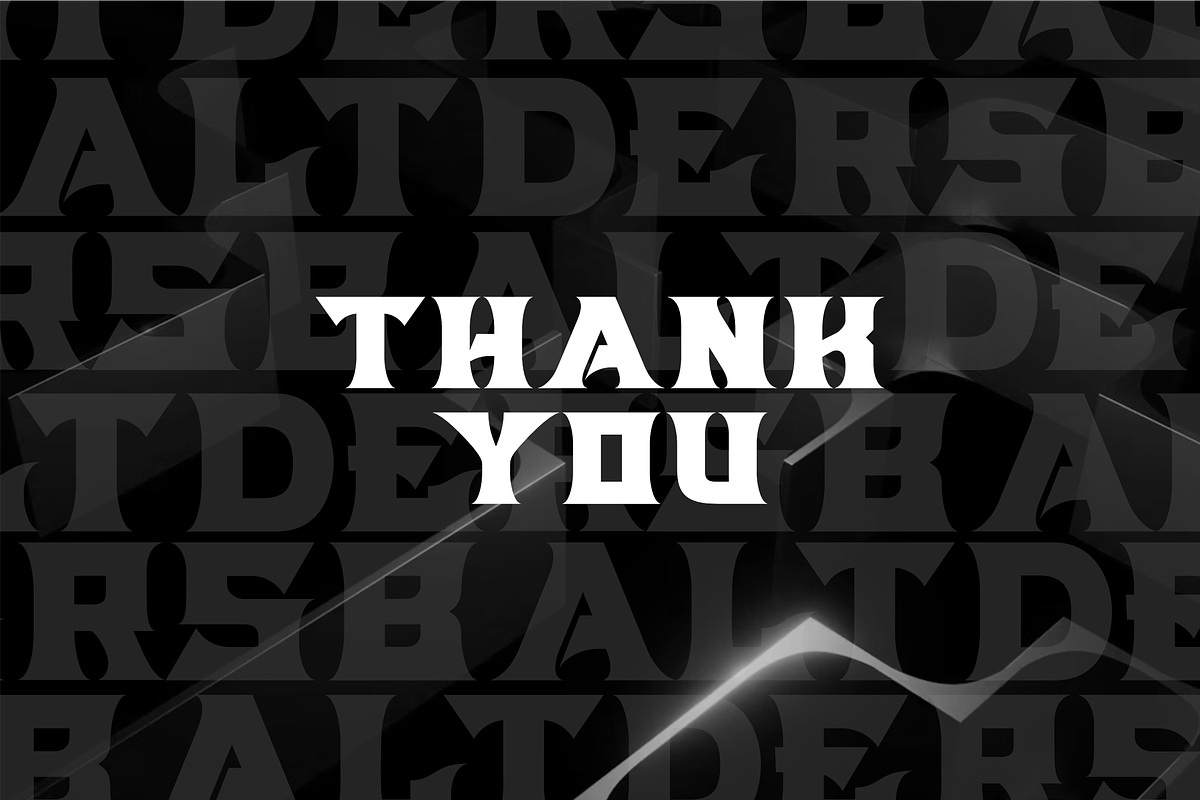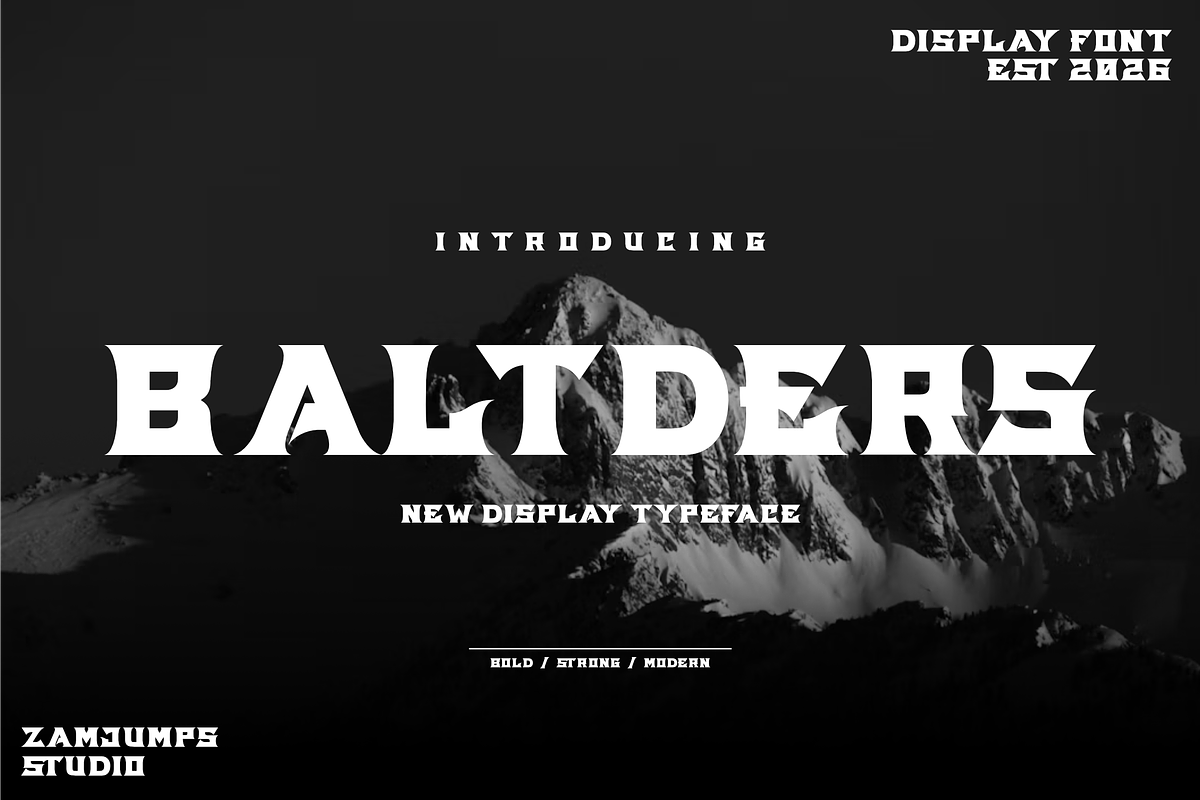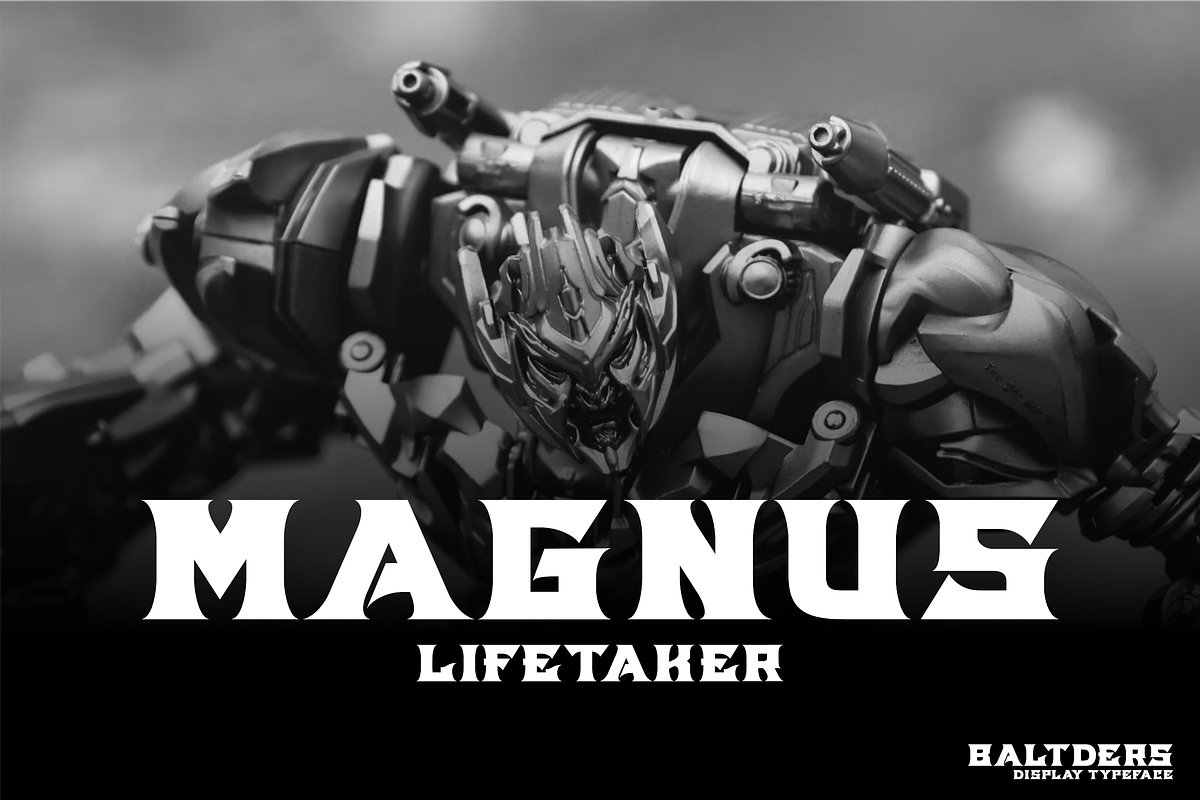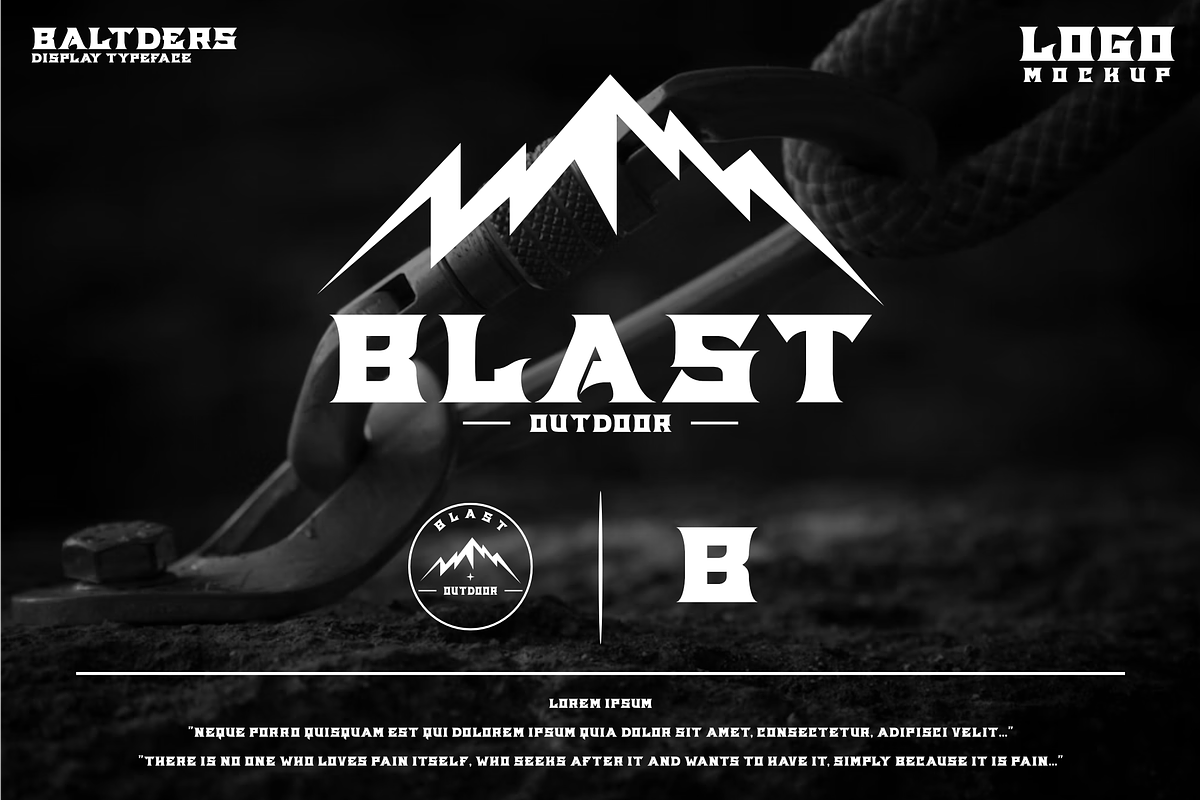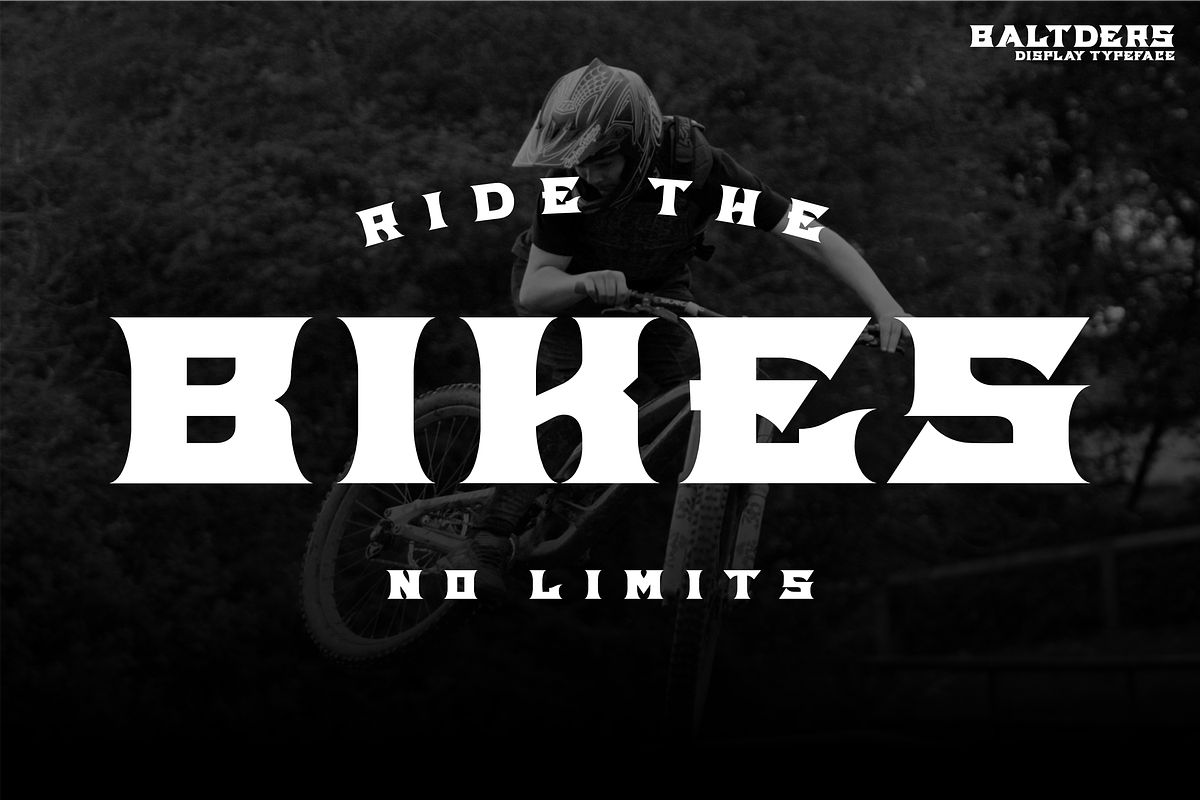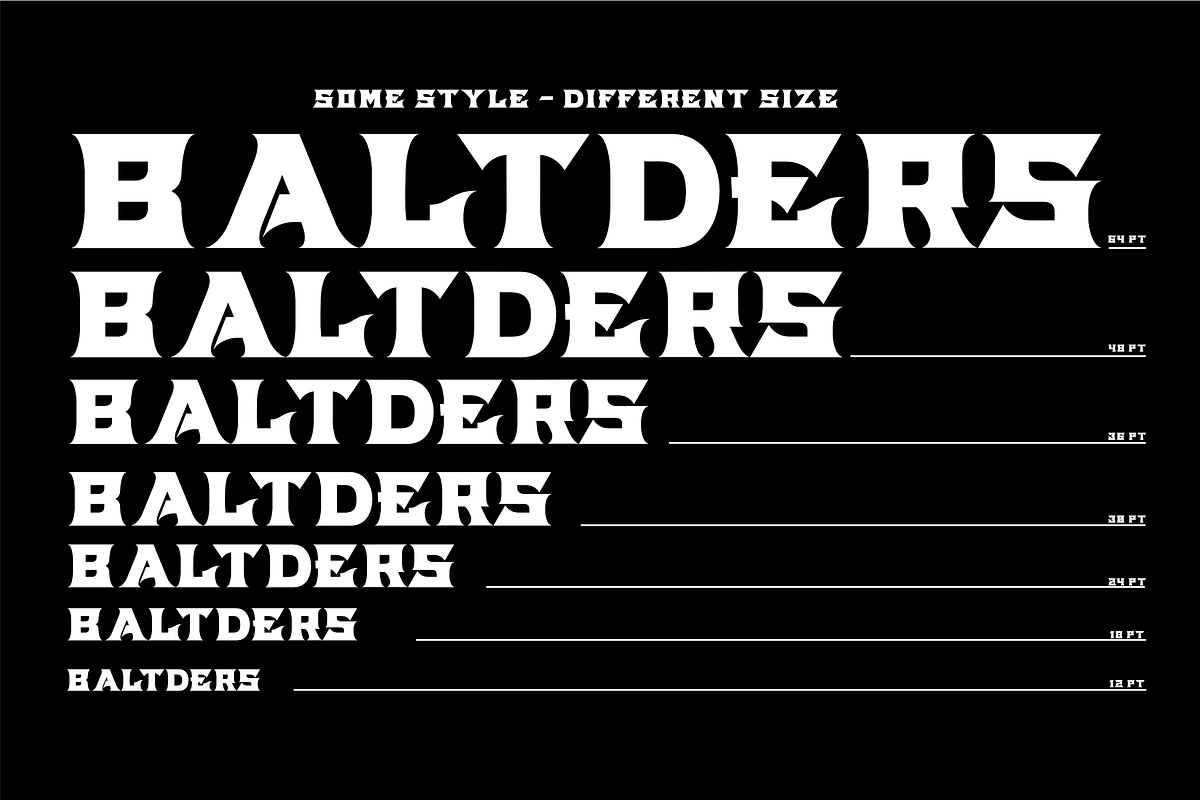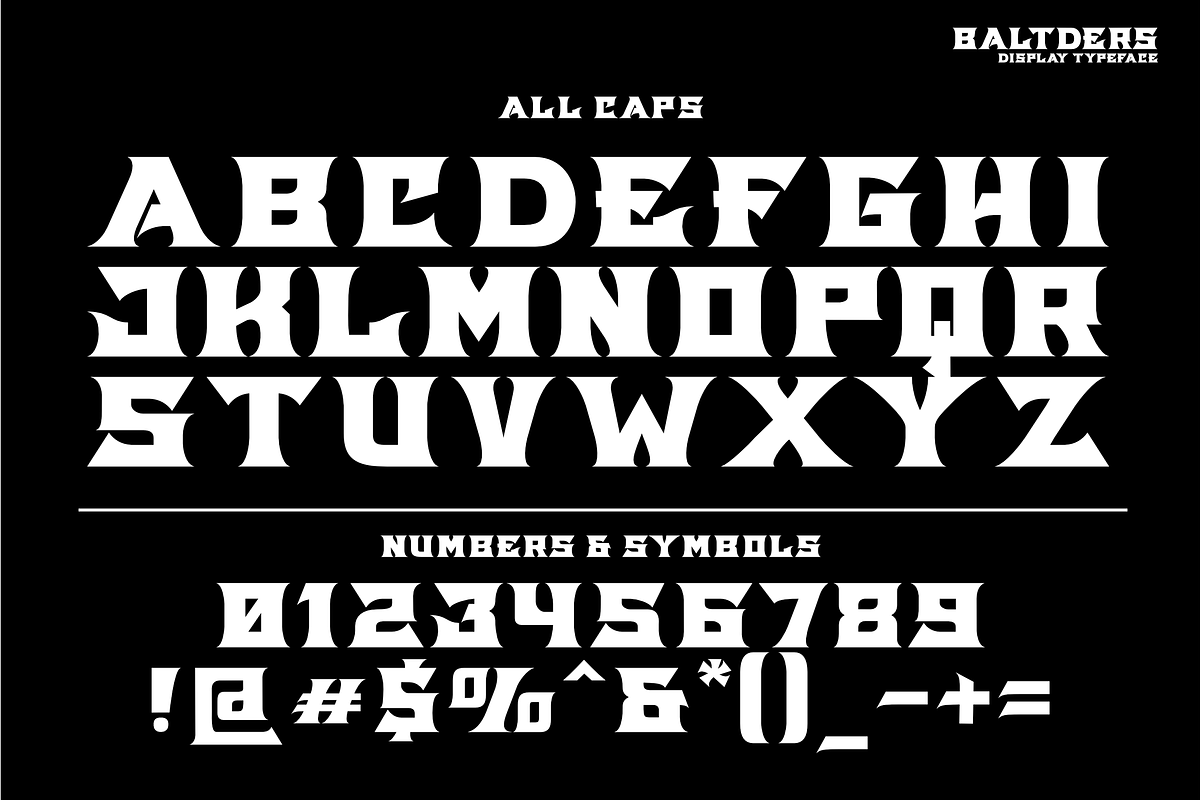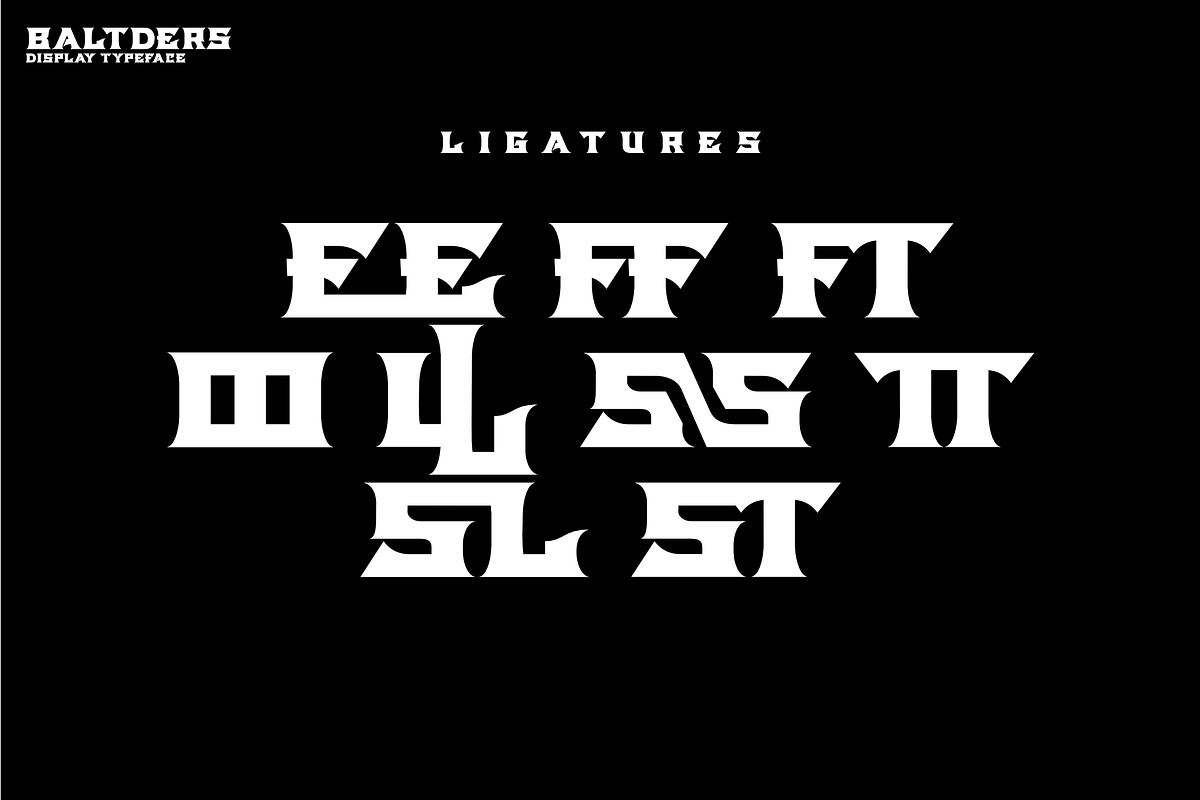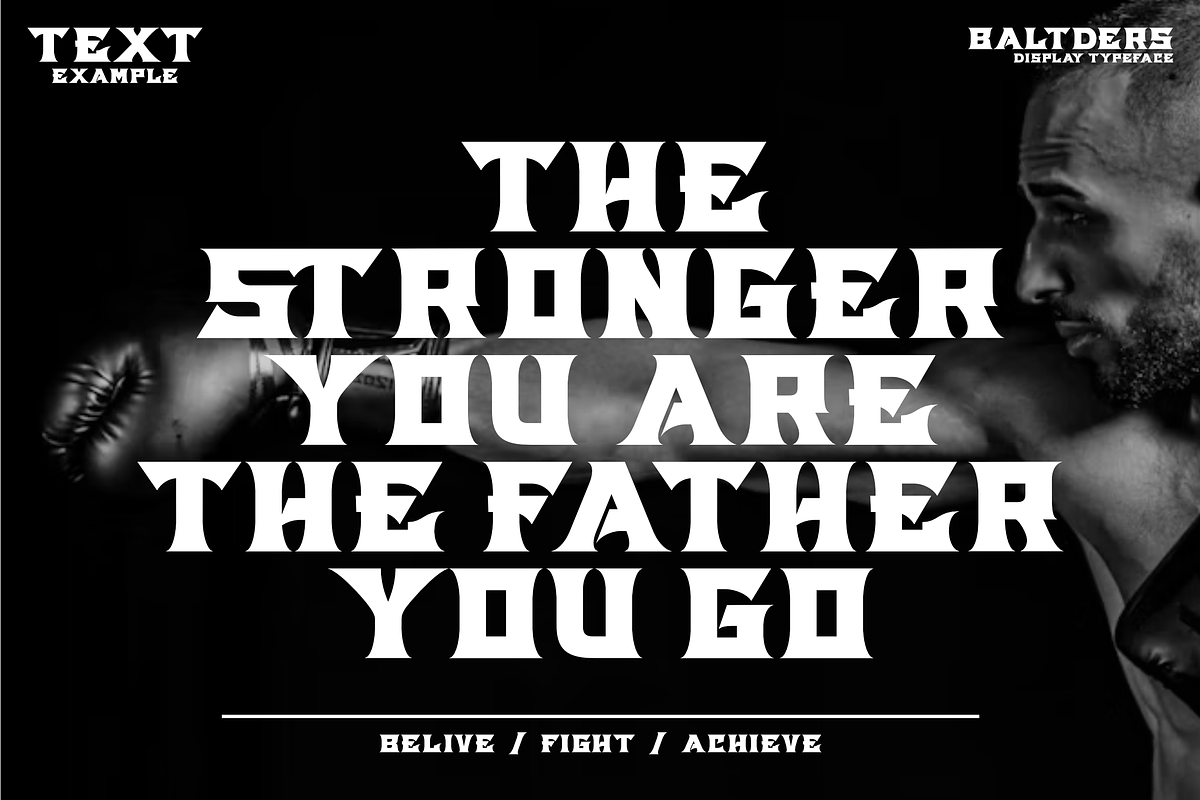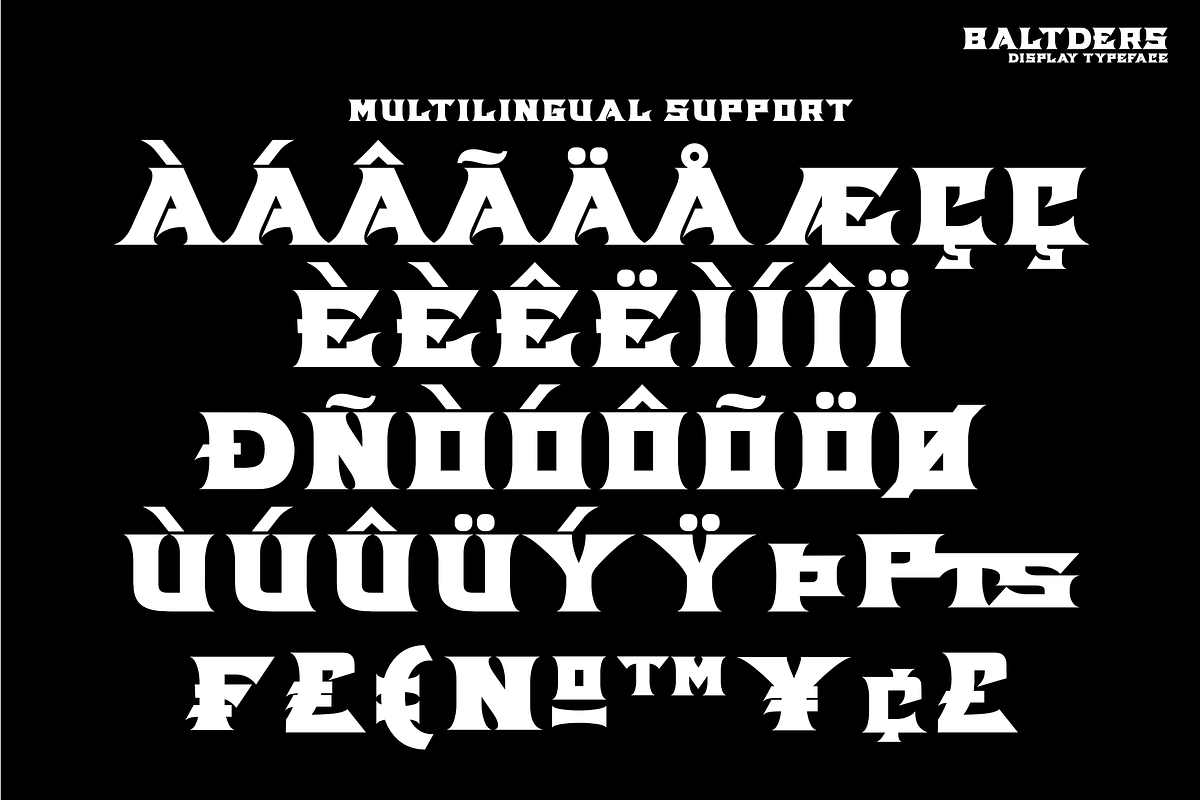
Baltders – Bold & Strong Display
Introducing Baltders, a powerful, strong, and modern display typeface. Designed with sharp angles, bold serifs, and a robust structure, Baltders commands attention and delivers a powerful visual impact for any project.
Inspired by strength and modern outdoor aesthetics, Ideal for logos, sports, posters, action titles, and modern outdoor branding confident, and unforgettable look. Make your design stand out with the raw power of Baltders!